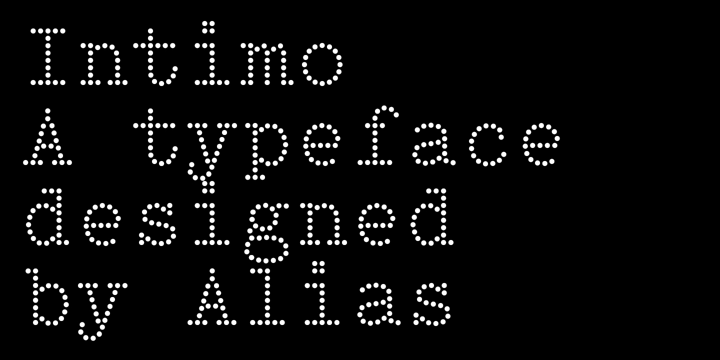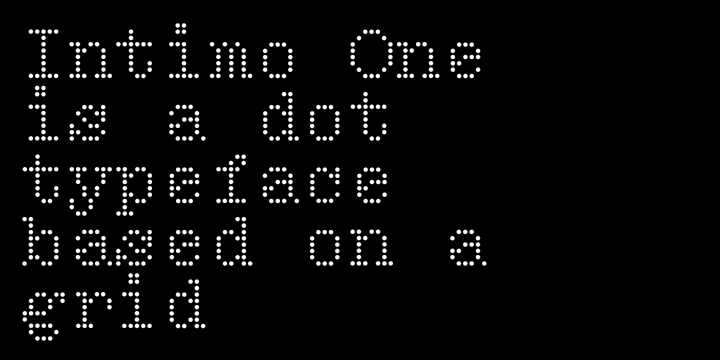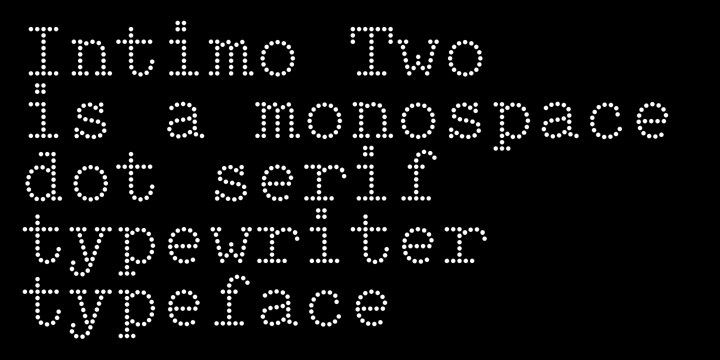
Intimo
Font Family by Alias
A two version type family, Intimo One is a serif dot matrix typeface, letterforms made up of grid-based dots. Intimo Two is also made up of dots, but in this case the lines are curved, giving a softer, more organic feel.